A display font can change the direction of a design before you add a single color, illustration, or texture.
Some typefaces feel playful. Others look athletic, nostalgic, handmade, or slightly rebellious. The strongest display fonts communicate that personality immediately, which is why they appear so often in logos, packaging, posters, apparel, Cricut projects, and social media graphics.
One thing I often notice while browsing font collections is that visual impact alone is not enough. A font may look impressive in a polished preview but become difficult to use once it is placed inside a real layout. Letter spacing, readability, alternate characters, outline styles, and compatibility with other typefaces matter just as much as the initial impression.
The ten display fonts below cover a wide range of aesthetics, from cheerful rounded lettering to graffiti-inspired forms and classic varsity typography. I have evaluated them from a branding and practical design perspective, paying attention to their visual personality, hierarchy, flexibility, and possible crafting applications.
- Best cheerful craft option: The Crafty Marie
How I Picked These
I compared these display fonts by headline readability, visual personality, spacing, character-set usefulness, scalability, pairing flexibility, crafting practicality, and how well each style can create a clear focal point without making the rest of a logo, poster, package, or Cricut design harder to read.
1. The Crafty Marie Display Font
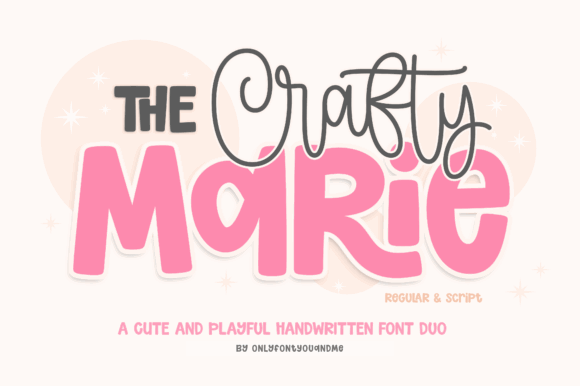
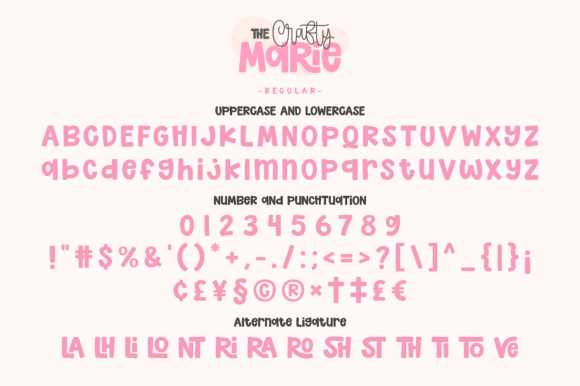
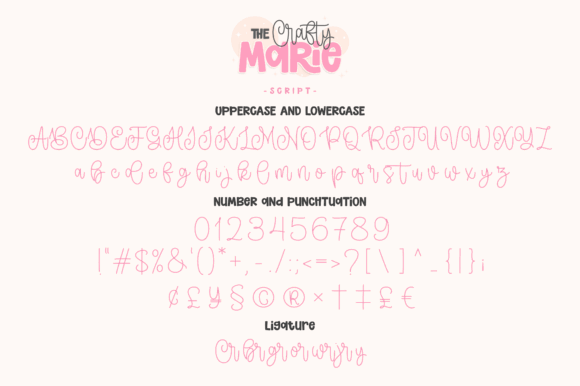
The Crafty Marie combines two contrasting lettering styles: a bold rounded display font and a loose handwritten script.
Visually, the main typeface feels cheerful and approachable. Its thick letterforms create a strong focal point, while the softer script introduces movement and personality. This pairing makes it easier to establish hierarchy without searching for a second font that matches.
The rounded display style is likely to attract the most attention in:
- Children’s branding
- Classroom materials
- Nursery prints
- Birthday invitations
- Sticker designs
- Cricut projects
- Playful product packaging
The script works better as an accent than as the main headline. I would use it for short words, names, or small supporting phrases rather than long paragraphs. Decorative handwritten fonts can lose readability quickly when they are reduced in size.
The clean, thick outlines also make The Crafty Marie suitable for layered lettering. A white offset, drop shadow, or contrasting outline can create the sticker-style effect that continues to appear in cheerful apparel and digital design.
From a branding perspective, this font duo has a friendly personality, but it is not especially neutral. It makes the most sense for brands that want to feel youthful, informal, and energetic.
The uppercase characters create a bold headline, while the lowercase forms introduce more movement. That variation gives designers several ways to build hierarchy within the same font family.
Twinkle Dreams could be used for:
- Christmas cards
- Holiday T-shirts
- Party decorations
- Children’s posters
- Festive social graphics
- Gift tags
- Nursery artwork
The decorative alternates and swashes provide additional customization, although I would use them carefully. Too many flourishes can make a short phrase feel cluttered, especially when several colors and illustrations are already competing for attention.
This is not a font I would choose for a restrained corporate identity. Its personality is too specific. For seasonal branding and cheerful crafting projects, however, that strong character becomes an advantage.
3. My Wednesday Night Display Font
My Wednesday Night sits somewhere between spooky typography and playful hand lettering.
The slightly irregular proportions give it a dark fairytale quality without pushing the design into aggressive horror territory. That balance makes it useful for projects aimed at younger audiences or anyone looking for a mysterious aesthetic that still feels accessible.
Visually, the lettering contains:
- Bold hand-drawn strokes
- Uneven curves
- Slightly distorted proportions
- A whimsical gothic mood
- Strong headline presence
I can imagine it working particularly well for Halloween invitations, children’s book covers, costume-party posters, themed merchandise, and dark social media graphics.
The font has enough personality to carry a simple composition, so it does not need much decoration around it. A limited color palette, a subtle texture, or one supporting illustration would probably create a stronger result than filling the layout with additional effects.
From a branding perspective, My Wednesday Night is memorable but not highly versatile. It belongs to a specific visual world. Used in the right context, that limitation can make the identity feel more focused.
4. Stay Chunky Display Font
Stay Chunky reflects the continuing interest in bold 1970s-inspired typography.
Its thick stems, soft corners, and bubbly proportions create an immediate retro mood. At the same time, the clean finish keeps it from looking like a direct reproduction of vintage lettering.
This style has remained popular for several years, especially in:
- Lifestyle branding
- Music posters
- Apparel graphics
- Coffee shop merchandise
- Beauty packaging
- Digital stickers
- Positive quote designs
The rounded forms feel friendly rather than heavy. That matters because some chunky display fonts become visually tiring when used across several words. Stay Chunky has enough softness to maintain a sense of movement.
The stylistic alternates and swashes offer additional ways to shape a wordmark. Still, the strongest results will probably come from restraint. One alternate letter can make a logo feel custom; using a different flourish on every character can make it harder to read.
From a branding perspective, this typeface suits businesses that want to look nostalgic, expressive, and informal. It would feel less natural in financial, legal, or highly technical visual identities.
5. Remember Things Display Font
Remember Things is another font pairing built around contrast.
The primary display style is tall, bold, and relatively smooth. Its vertical proportions give headlines a confident presence without making them feel overly wide. An outline version adds more flexibility for layered compositions, apparel graphics, and sticker-like typography.
The handwritten companion introduces a more personal tone. This creates a useful division of roles:
- Use the tall display font for the main message
- Use the script for names or short supporting text
- Use the outline style for depth and separation
- Combine the styles to create a clearer visual hierarchy
This kind of ready-made pairing can save time, but it still needs careful spacing. Tall display letters often require manual adjustments when placed inside logos or compact social graphics.
Remember Things could suit creative campaigns, product labels, cheerful brand identities, posters, and merchandise. The typeface feels contemporary, although the outlined sticker effect may date more quickly than the solid version.
I would treat the outline as an optional styling tool rather than the default appearance.
6. Awaken Design Display Font
Awaken Design moves in a very different direction.
Its exaggerated curves, sharp details, and chunky structure combine elements of comic-book lettering with graffiti-inspired energy. The result feels loud, urban, and intentionally dramatic.
This font is designed to dominate a layout. It could be effective in:
- Gaming graphics
- Streetwear branding
- Sports posters
- YouTube thumbnails
- Comic-inspired artwork
- Music event promotions
- Youth-focused packaging
The extruded version is especially useful for creating dimensional headlines. Layering it behind the regular style can produce a strong 3D effect without constructing the depth manually.
The main challenge is visual competition. A font this expressive can easily clash with detailed backgrounds, busy illustrations, or additional decorative lettering. I would pair it with a simple sans serif and allow plenty of negative space around the headline.
Awaken Design is not subtle, and that is part of its appeal. It suits projects where typography needs to feel active rather than merely informative.
7. Bubble Joy Display Font
Bubble Joy is built around soft, rounded letterforms that feel cheerful from the first glance.
The shapes are thick enough to remain visible across different formats, while the simple construction helps preserve readability. That combination matters for crafting because some cute display fonts look charming at poster size but fall apart when reduced for labels, planner stickers, or small vinyl cuts.
The regular and outline styles can be stacked to create:
- Multicolored headlines
- Offset shadows
- Sticker effects
- Layered Cricut designs
- Dimensional social graphics
Bubble Joy could work for children’s apparel, birthday décor, classroom printables, toy packaging, food branding, and playful online content.
Its friendly appearance makes it easy to like, but it can also become generic when paired with the same pastel colors and cartoon graphics used across many children’s products. A more unusual palette or a restrained layout would help give the typeface a stronger identity.
Visually, it offers flexibility. Creatively, it still needs a clear concept around it.
8. Varsity Signature Display Font
Varsity Signature draws from traditional collegiate lettering.
The bold structure suggests sports uniforms, championship banners, letterman jackets, and campus graphics. This visual language is familiar, which makes the font easy to understand at a glance.
It can be used for:
- Fitness branding
- Team merchandise
- School events
- Sports logos
- Product packaging
- Gym apparel
- Tournament posters
The uppercase characters provide the strongest athletic impact, but the inclusion of lowercase letters, numbers, and punctuation makes the font more practical for larger layouts.
One thing I would pay attention to is originality. Varsity typography is widely used, and many fonts in this category look similar. A distinctive color system, emblem, mascot, or supporting typeface may be necessary to keep the final brand from feeling generic.
The font provides a reliable foundation. The surrounding identity system is what will make it memorable.
9. Farmhouse Valentine’s Display Font
Farmhouse Valentine has a handwritten appearance with cleaner construction than many rustic script fonts.
The lettering feels warm and personal, but the lines remain controlled enough to preserve readability. That balance is useful for crafting projects, where overly delicate scripts can be difficult to cut, weed, print, or resize.
Its visual personality suits:
- Pantry labels
- Wooden signs
- Wedding stationery
- Digital planners
- Habit trackers
- Farmhouse décor
- Handmade product packaging
The typeface carries a sense of nostalgia, although the farmhouse aesthetic has been heavily used in recent years. It can still feel effective, but the surrounding design needs some individuality.
Instead of automatically pairing it with distressed wood textures, wreaths, and neutral beige colors, I would explore cleaner layouts or more contemporary color combinations. That can keep the font’s warmth while avoiding the most predictable rustic styling.
Farmhouse Valentine works best in short phrases. Long sections of handwritten lettering are likely to feel visually dense.
10. Sports Varsity Display Font
Sports Varsity uses the heavy block-letter structure associated with team uniforms and college athletics.
Its straightforward forms create authority and energy. The letter shapes are likely to reproduce well across vinyl, printed apparel, banners, signage, and other applications where clean edges matter.
This typeface is particularly suited to:
- Custom jerseys
- Team logos
- Game-day posters
- Sports event branding
- School merchandise
- Gym graphics
- Personalized home décor
The numbers are an important part of the set because athletic layouts often depend as much on numerals as they do on words. Balanced numbers can make jersey-style compositions look much more convincing.
As with Varsity Signature, the familiar structure is both a strength and a limitation. The font communicates “sports” immediately, but it may not create a unique identity by itself.
For stronger branding, I would combine it with a distinctive symbol, custom color palette, or secondary condensed font.
Read More: While display fonts are excellent for making a statement, don't overlook the elegance and personality that Modern Script Fonts: 18 Gorgeous Picks for Branding can bring to your creative branding projects.
How to Choose the Right Display Font
A strong display font should do more than attract attention. It needs to support the mood, audience, and practical requirements of the project.
Before choosing one, I usually look at several details.
Consider the Emotional Tone
Rounded lettering often feels friendly. Sharp forms can appear energetic or rebellious. Tall condensed letters tend to feel confident, while handwritten fonts create a more personal impression.
The typeface should reinforce the message rather than contradict it.
Test Real Words
Font previews are designed to make typefaces look appealing. Your actual business name, product title, or phrase may contain very different letter combinations.
Test the words you plan to use before committing to the font.
Check Readability at Different Sizes
A display font may look excellent in a large logo but become unclear on a product label or mobile screen.
Reduce the size and check whether the counters, spacing, and decorative details remain readable.
Review the Character Set
Look for:
- Uppercase and lowercase letters
- Numbers
- Punctuation
- Multilingual support
- Ligatures
- Stylistic alternates
- Swashes
- Outline or shadow styles
A visually attractive font becomes much less useful when essential characters are missing.
Think About Production
For Cricut, vinyl, laser-cut lettering, and other physical crafts, clean outlines are especially important.
Thin connections, tiny interior spaces, and excessive decoration can make production more difficult. A font that looks beautiful on screen may require significant adjustment before it can be cut successfully.
Where to Find More Fonts With Commercial Licensing
Finding attractive fonts is usually easy. Finding fonts with clear licensing is where the process becomes slower.
Creative Fabrica includes thousands of fonts and creative assets with commercial-use licensing under its subscription terms. It can be useful when you regularly create client work, merchandise, printables, social graphics, or crafting products and want a larger library in one place.
I still recommend checking the current license for each project, especially when the design will be used in editable templates, digital downloads, logos, or products sold at scale. Licensing terms can differ depending on how the original font files or finished designs are distributed.
Which Display Font Should You Choose?
The best display font is not always the loudest or most decorative option.
It is the one that gives the design a clear personality while remaining readable and practical. The Crafty Marie and Bubble Joy lean toward cheerful children’s projects. Stay Chunky brings retro warmth. Awaken Design introduces urban energy. Varsity Signature and Sports Varsity provide a familiar athletic structure.
Not every font in this collection will suit every project, and that is completely normal. Display typography is most effective when its personality matches the message rather than being added only because it looks fashionable.
I tend to judge a typeface across several applications instead of relying on one polished preview. A font should still feel convincing in a logo, a poster, a small label, and a simple black-and-white layout.
That is usually where its real design potential becomes visible.
Frequently Asked Questions
1. What is a display font?
A display font is a typeface created for large, attention-grabbing text such as logos, headlines, posters, packaging, social media graphics, and apparel. These fonts usually have a stronger visual personality than body typefaces and are best used for short phrases rather than long paragraphs.
2. What are the best display fonts for branding?
The best display fonts for branding are readable, distinctive, and visually consistent with the brand’s personality. Stay Chunky can suit retro lifestyle projects, Awaken Design fits gaming or streetwear branding, while Varsity Signature communicates an athletic and collegiate mood. Always test the actual brand name because letter combinations can look very different from a polished font preview.
3. Can display fonts be used for Cricut and crafting projects?
Many display fonts can be used for Cricut designs, vinyl decals, stickers, T-shirts, wooden signs, invitations, and printable crafts. Fonts with thick strokes and clean outlines are usually easier to cut and weed, while outline and layered styles can help create shadows, offsets, and multicolored lettering.